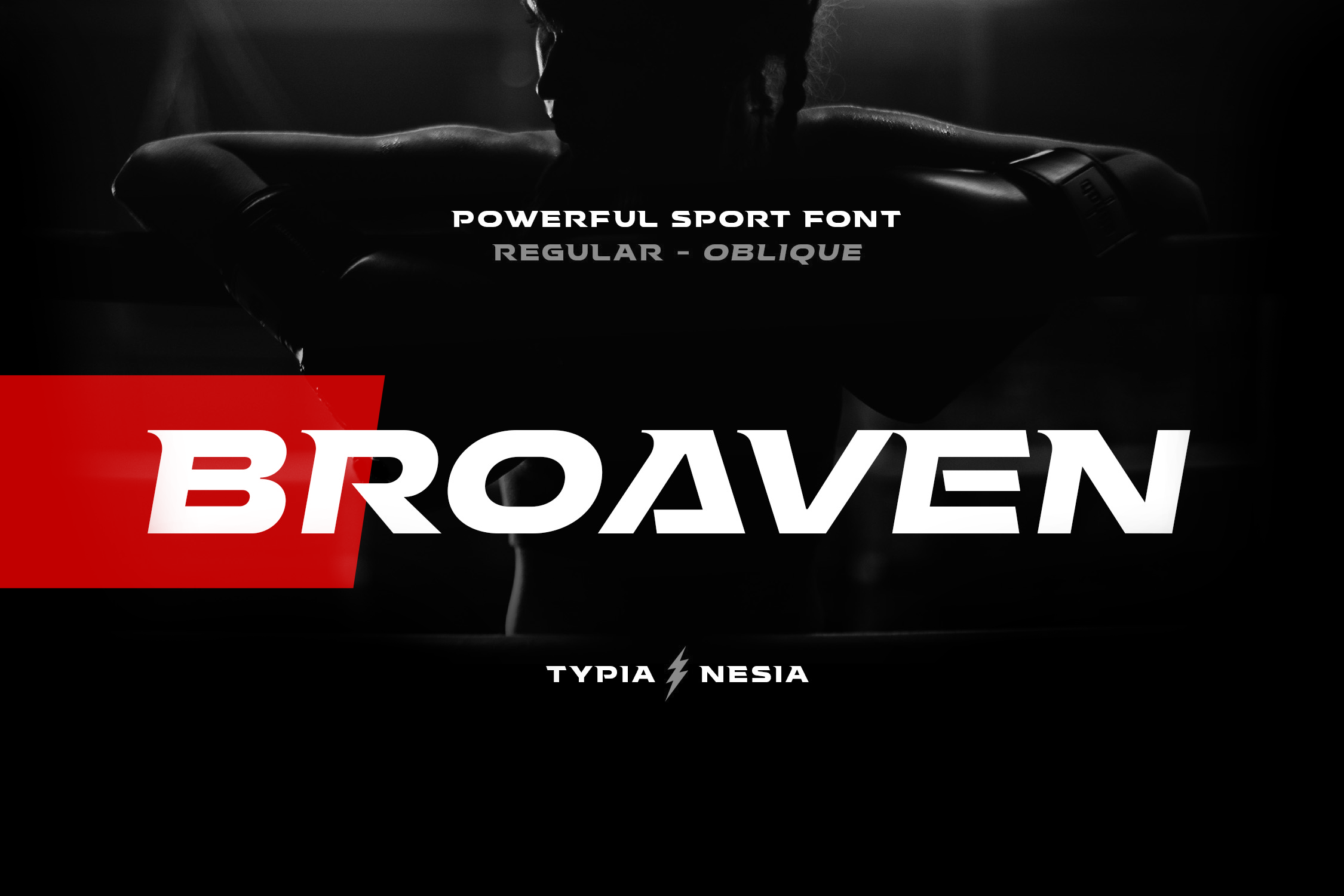
Broaven
Broaven is a display sans and sans serif font family. This typeface has two styles and was published by Typia Nesia.
Broaven - Bold Expanded Display Font - Racing Sport Game Sans Serif - Logo and branding Tech Font
Broaven Sport Game Sans Serif Display Font is perfect for your up coming projects. Such as logo branding, editorial design, esport design, Fitness Gym Branding, game / gaming industry, sport racing, super car brand, esport branding, music poster, website design, modern advertising design, poster quote, book/cover title, special events and any more.